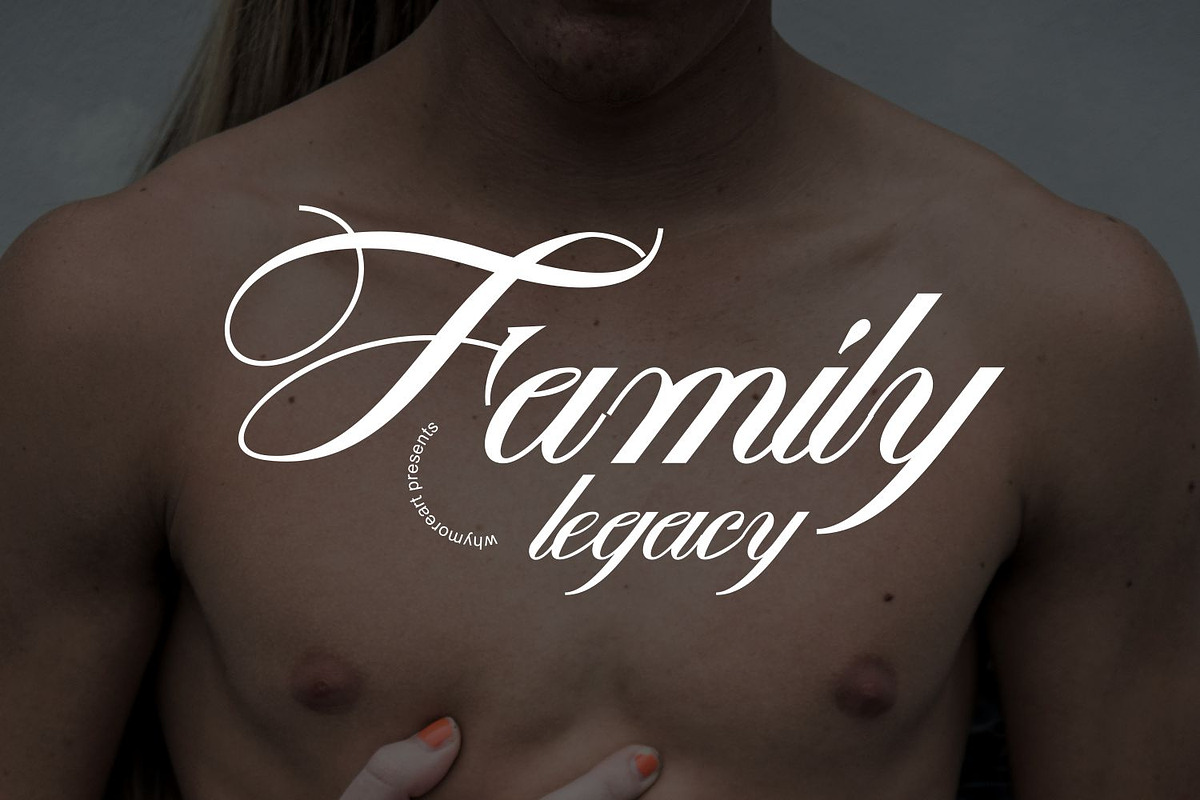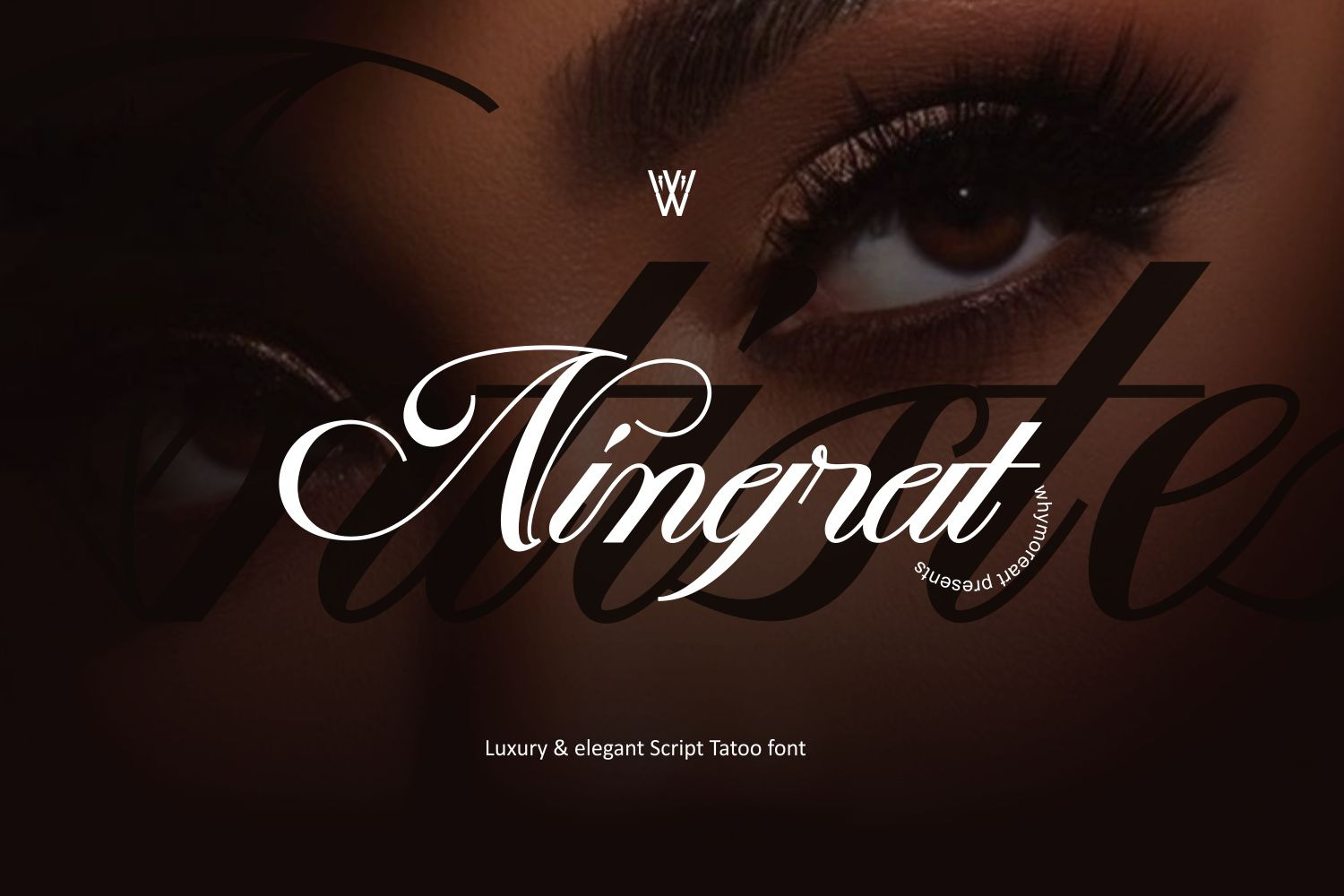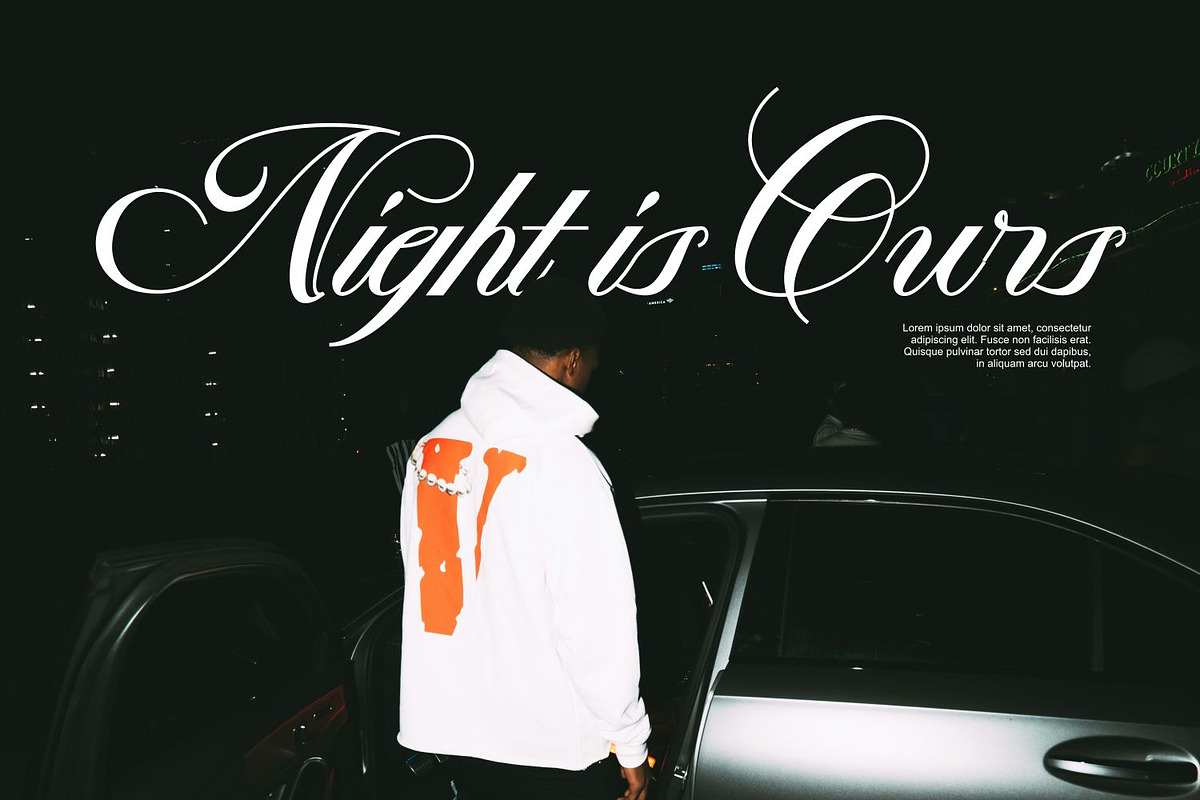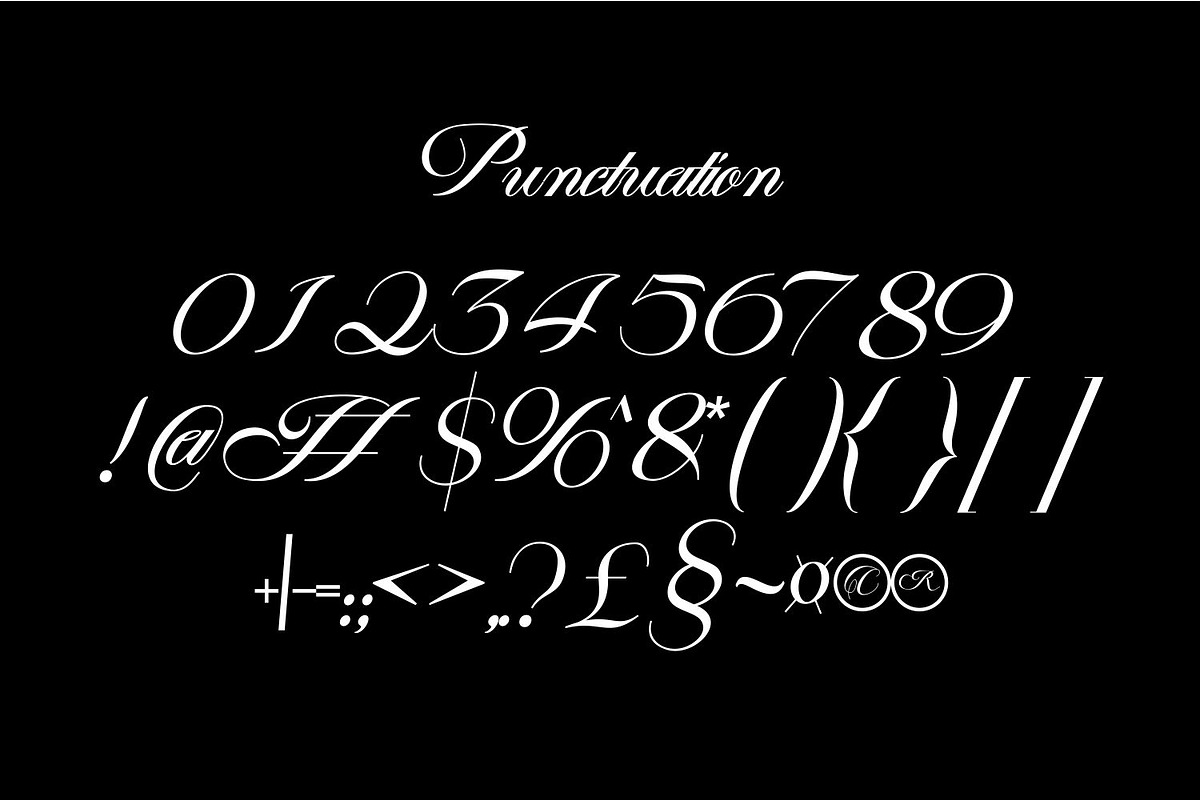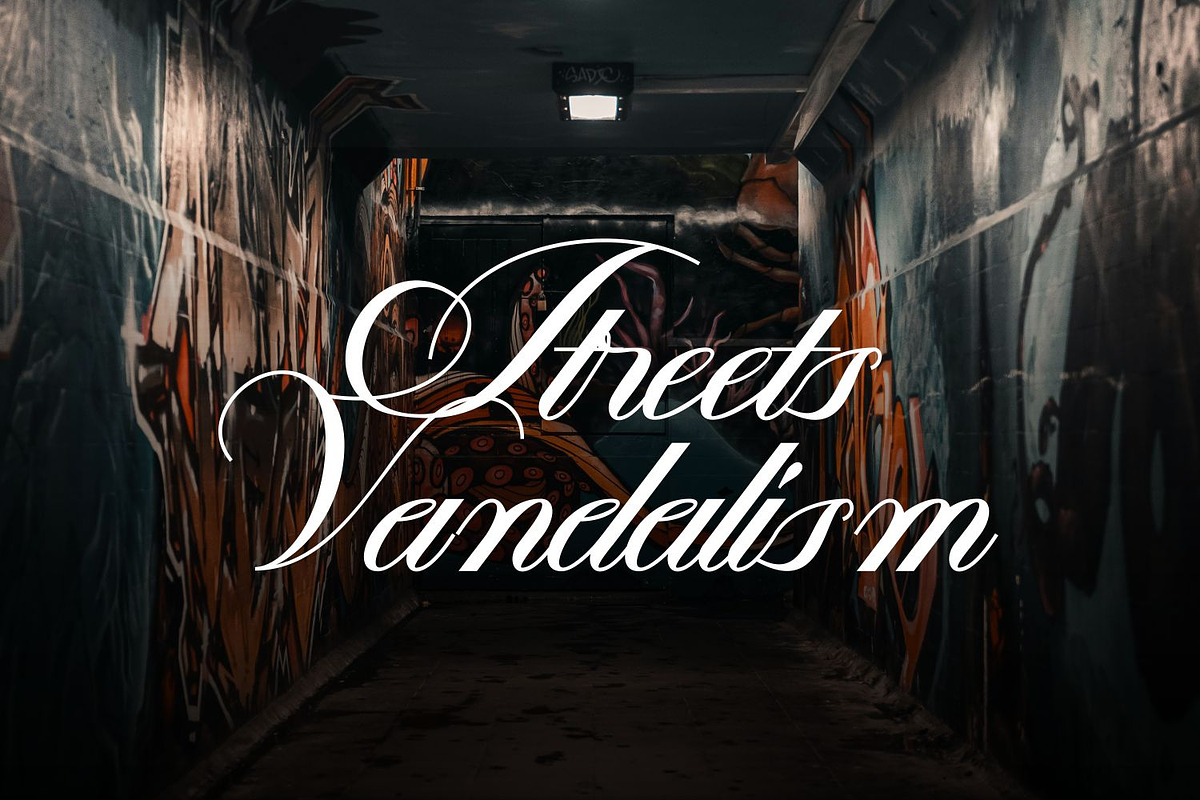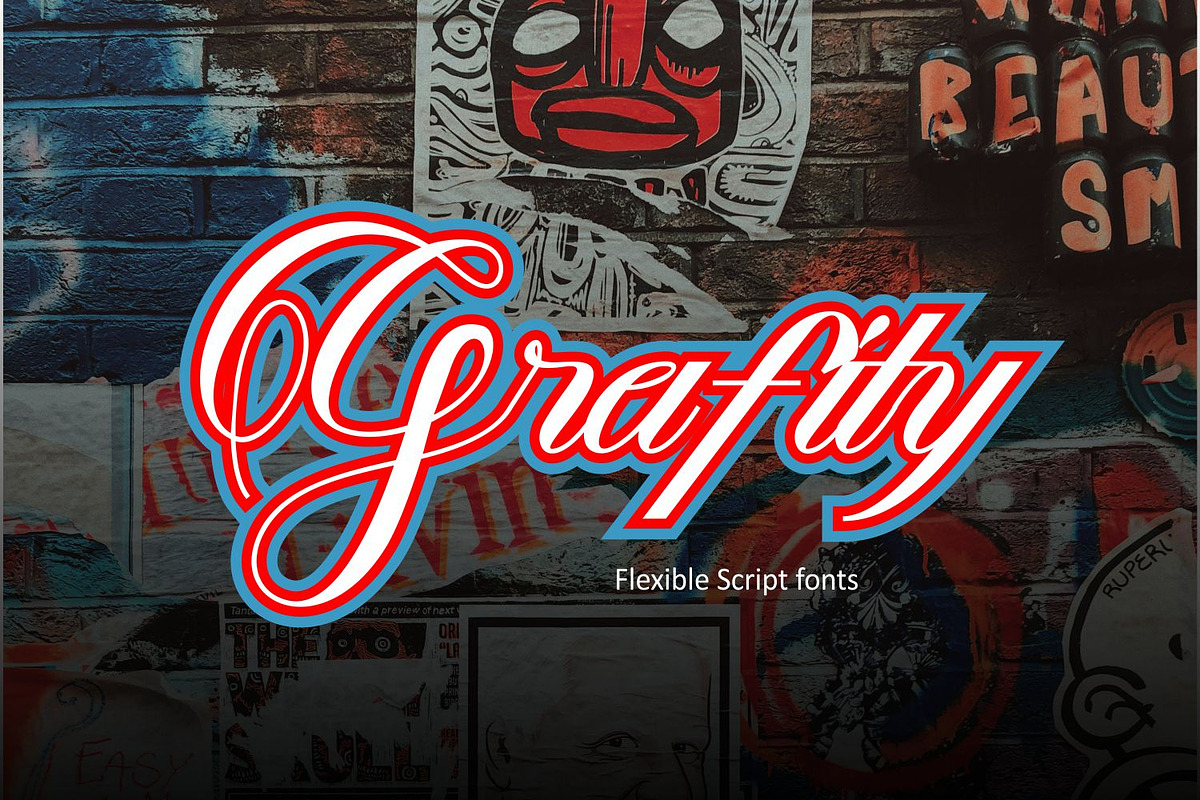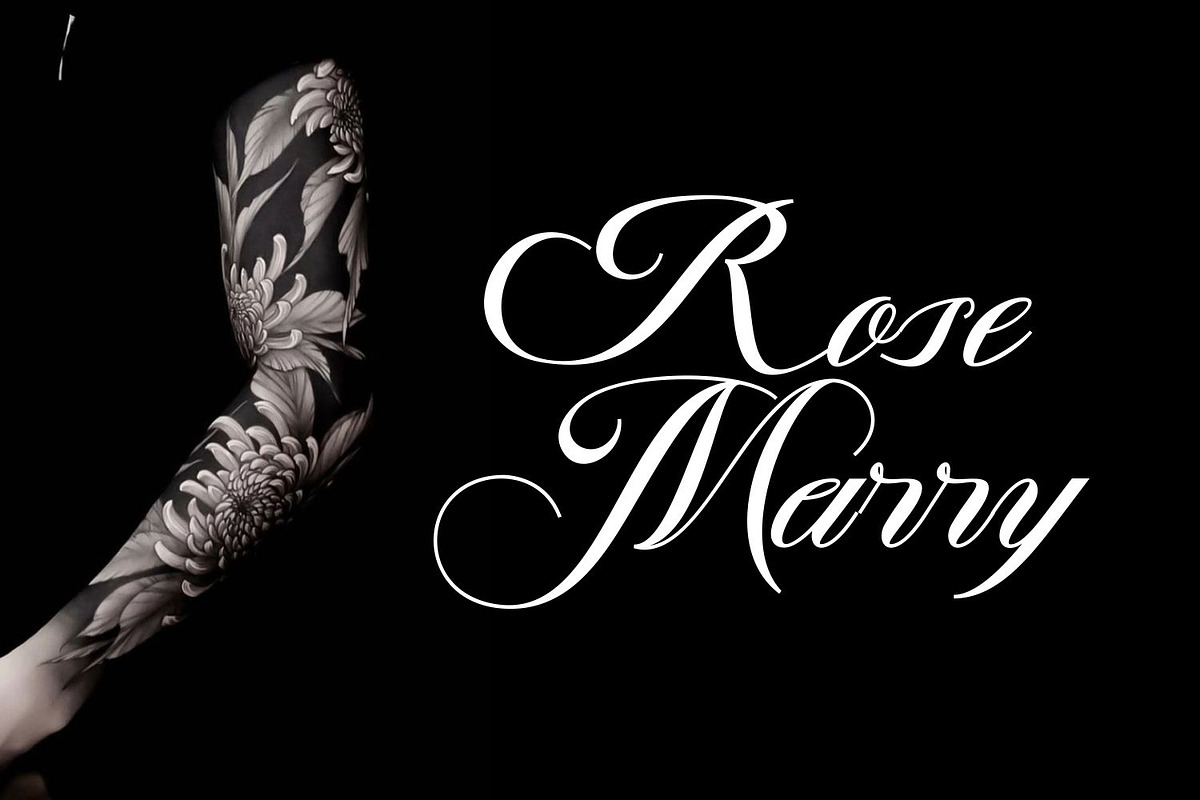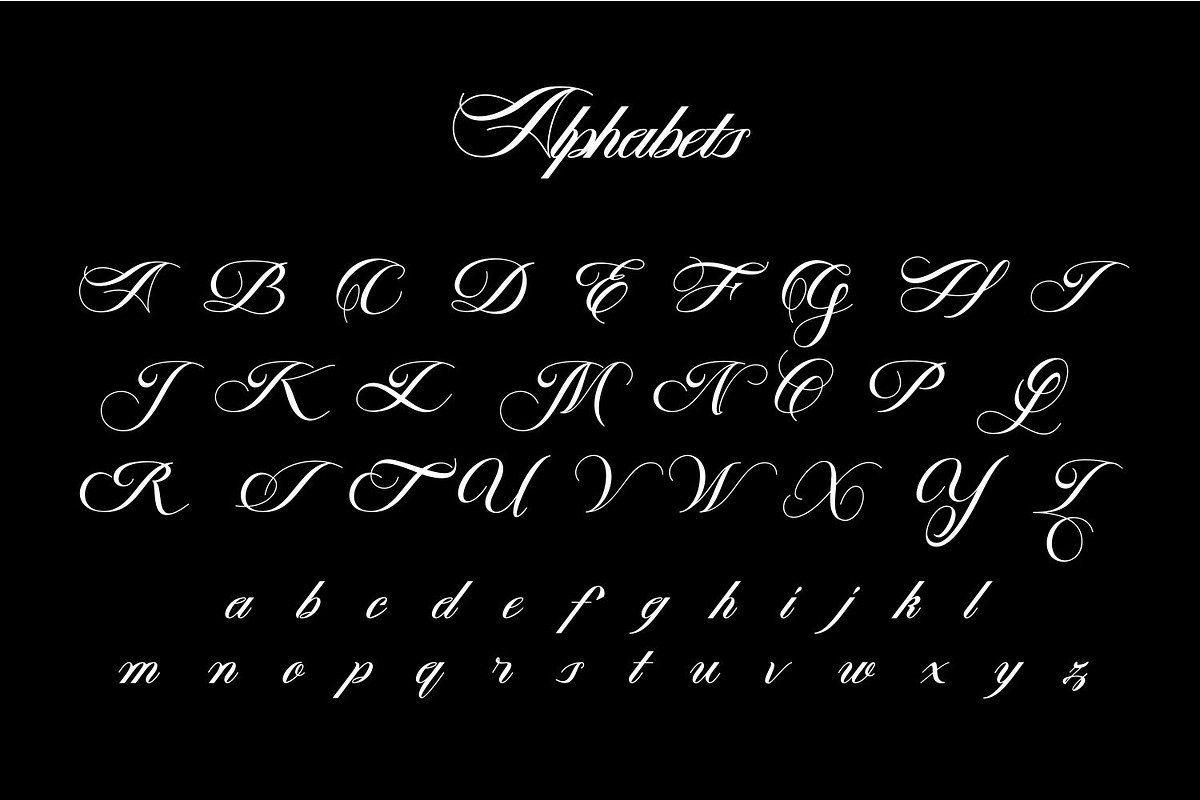
Ningrat | Script Tatoo Font
The Ningrat Font is a captivating script font designed specifically for tattoo designs, exuding a sense of elegance, creativity, and timeless style. With its fluid strokes and intricate details, this font brings a touch of artistry and personality to tattoo artworks. Whether you’re creating delicate script tattoos, bold statement pieces, or intricate sleeve designs, the Ningrat Font adds a unique and personalized touch that enhances the beauty and significance of the tattoo. Its versatility and expressive nature make it perfect for translating personal narratives, quotes, or meaningful symbols into stunning tattoo art.